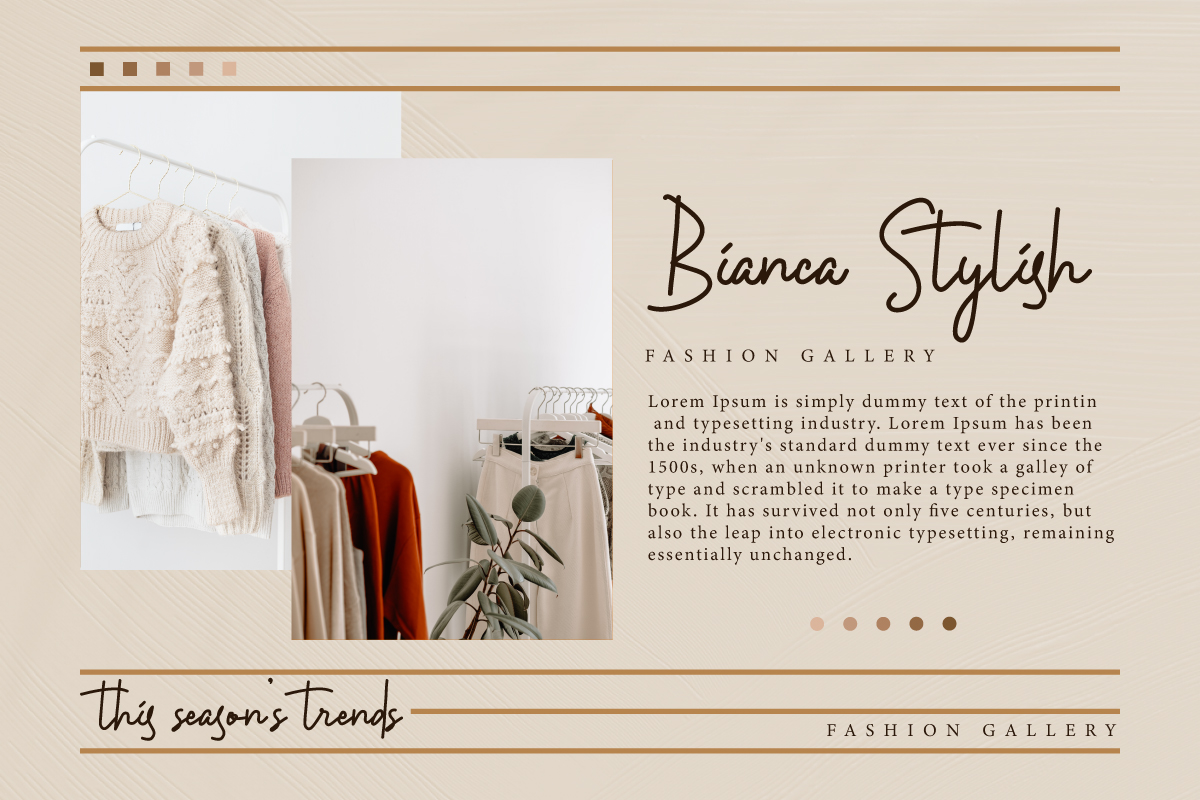
Christof Jasper Font
Christof Jasper Script Font
This is a simple casual handwritten signature font. The lines in this font seem to be dancing in a casual style and exudes an elegant charm that can still be read easily. It would be perfect for many industry such as cosmetic, fashion, florist, furniture, photography, printing, publishing, wedding organizer, and more!
Christof Jasper Font includes full set of Uppercase and Lowercase Basic Characters, Numerals and Punctuation. Also it contains ligature and swoosh characters to make your designs have a beautiful look and perfect for many projects such as business card, creating logo, headline, invitation, label, magazine, product packaging, quote, signage, stationery, sticker, website etc.